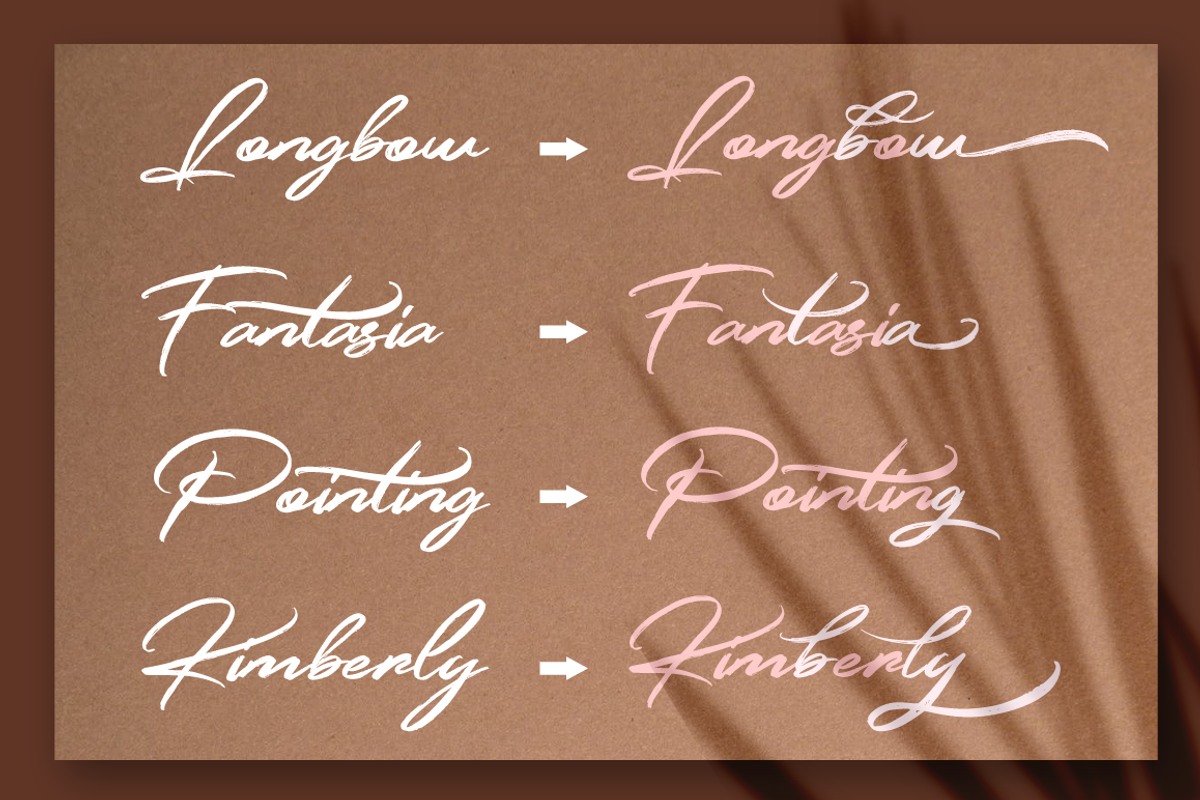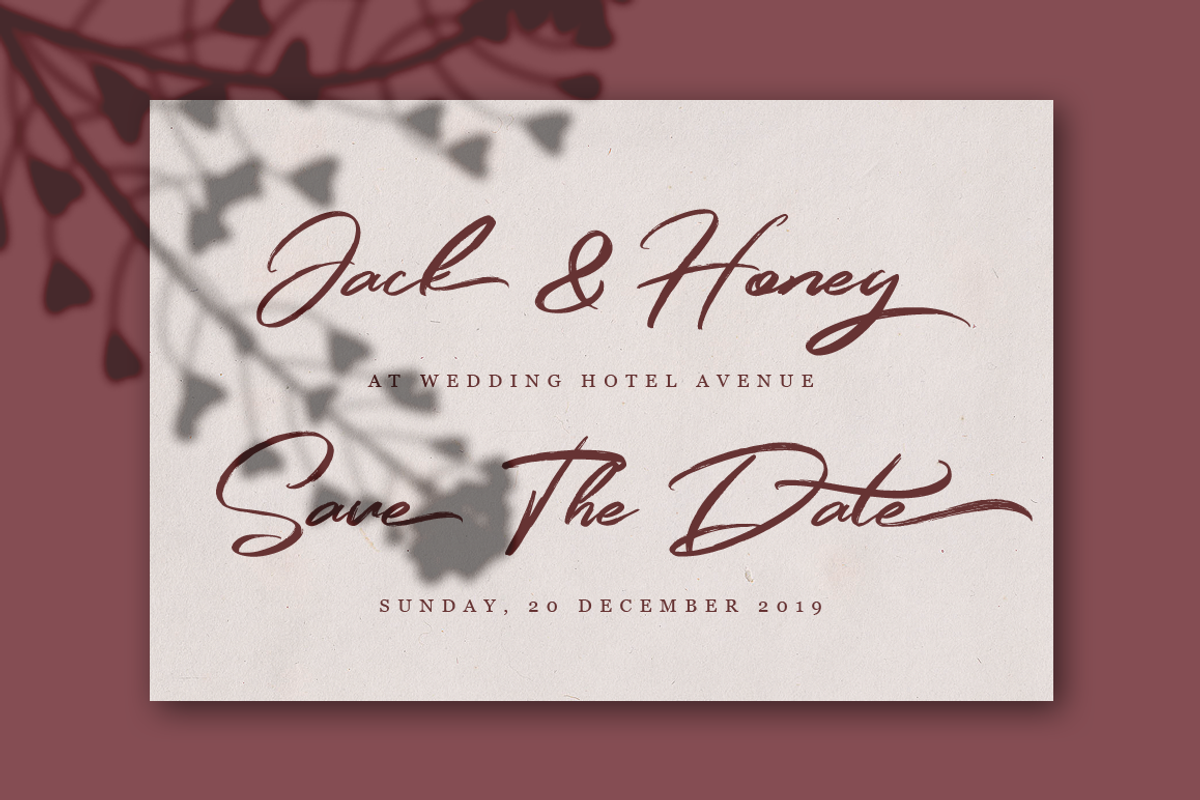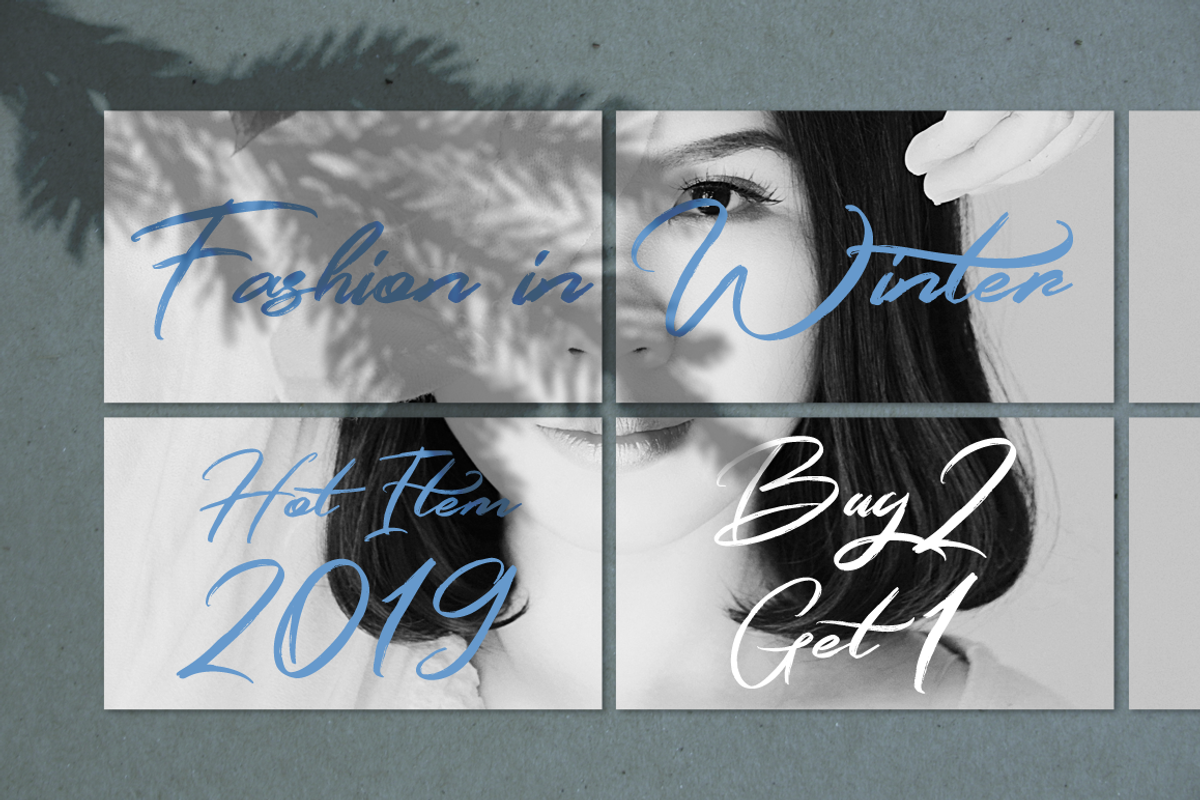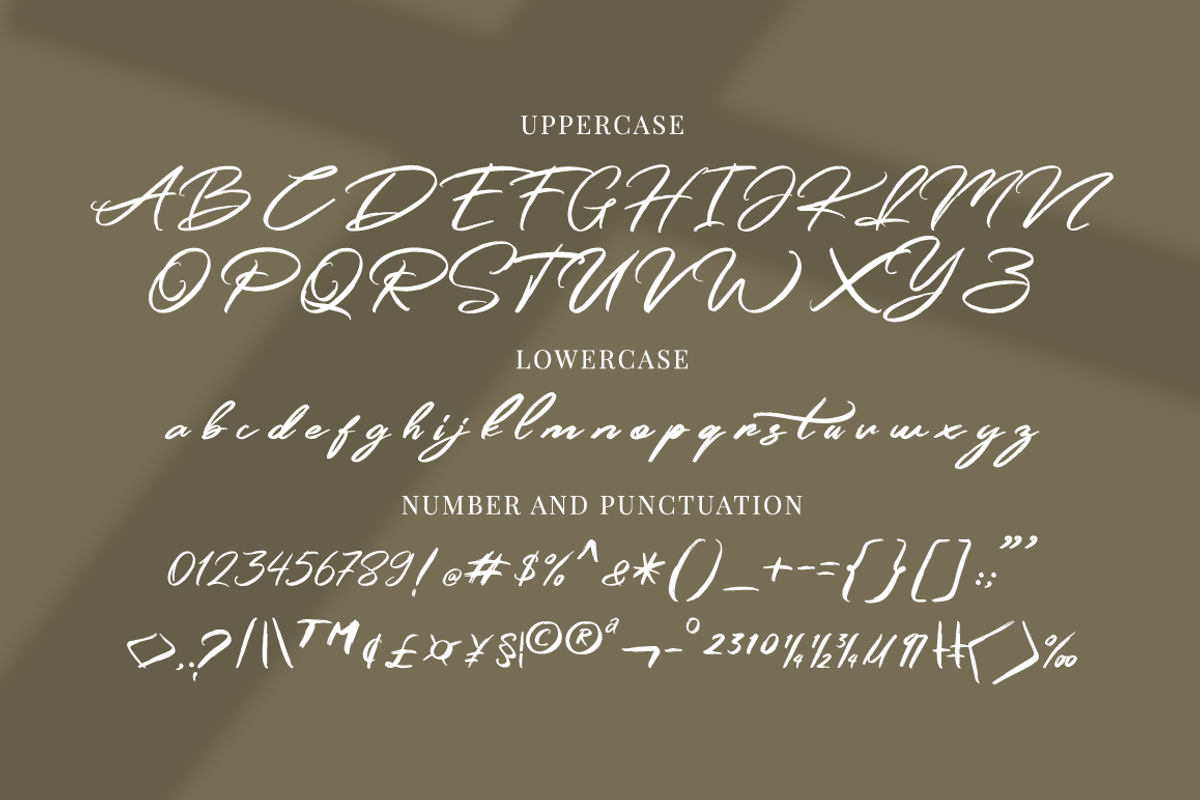
Simpletune - Handwritten Script Font
Simpletune is handwritten script font with dry brush and signature style. Suitable for design, element design, wedding, event, t-shirt, logo, badges, sticker, and awesome work, etc...
Multilanguage Support: ÀÁÂÃÄÅÆÇÈÉÊËÌÍÎÏÐÑÒÓÔÕÖØÙÚÛÜÝßàáâãäåæçèéêëìíîïðñòóôõöøùúûüýÿ
Open Type Features Fonts
Multilanguage Support